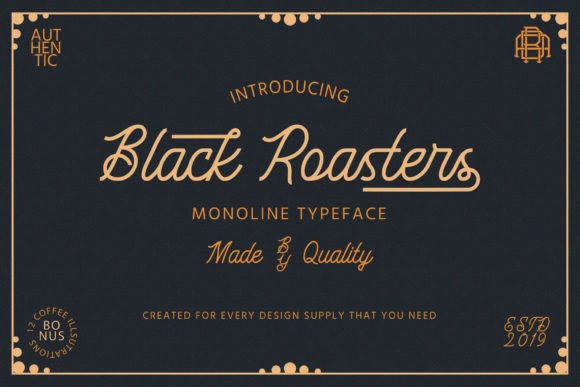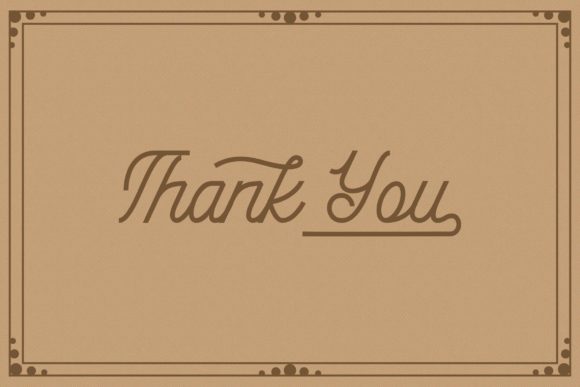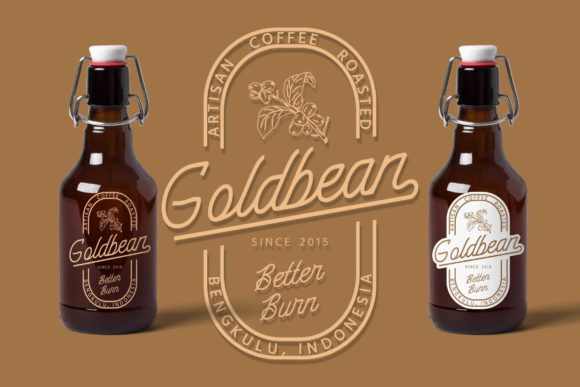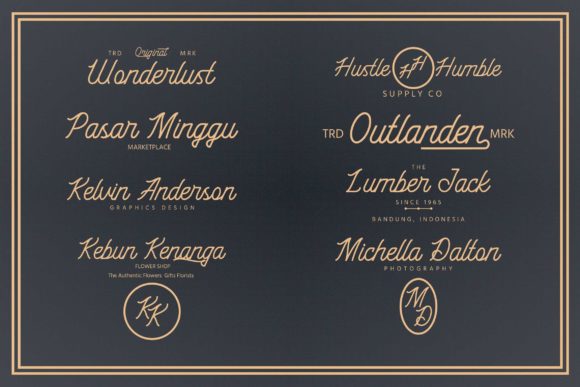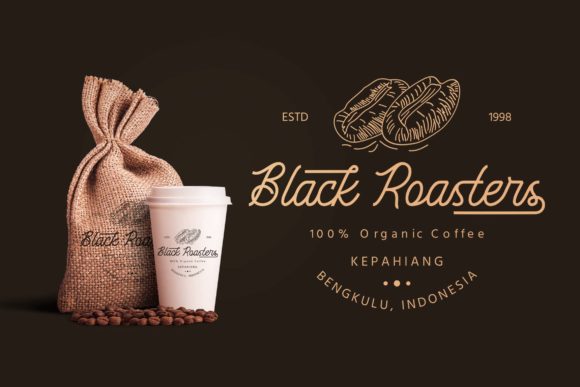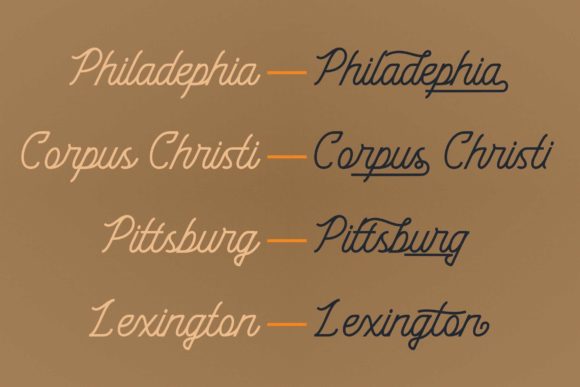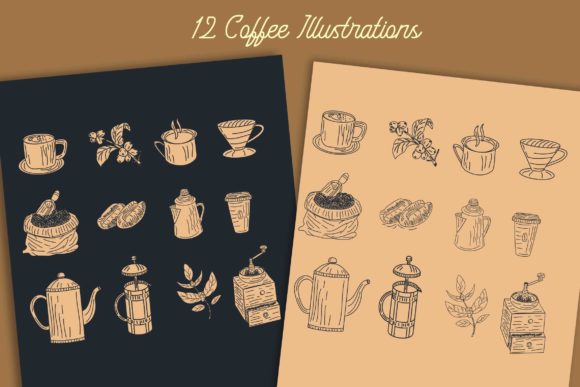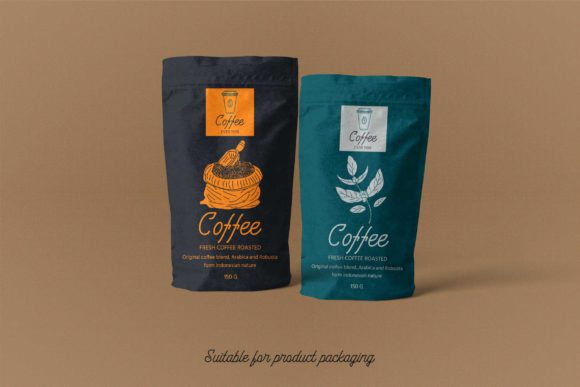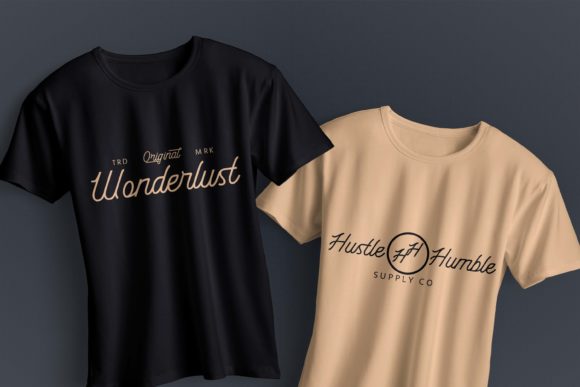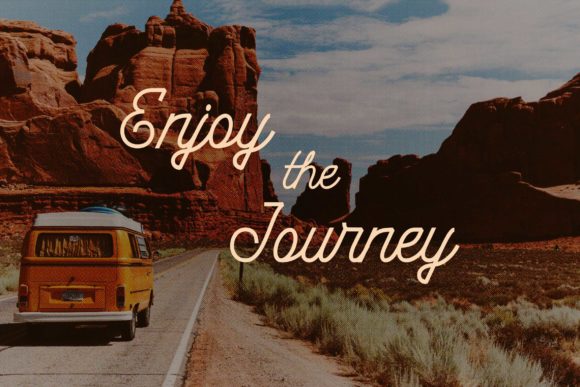
Black Roasters Font
About Black Roasters Font
Black Roasters is a fun and bold vintage handwritten font. It will turn any design project into a true stand out!